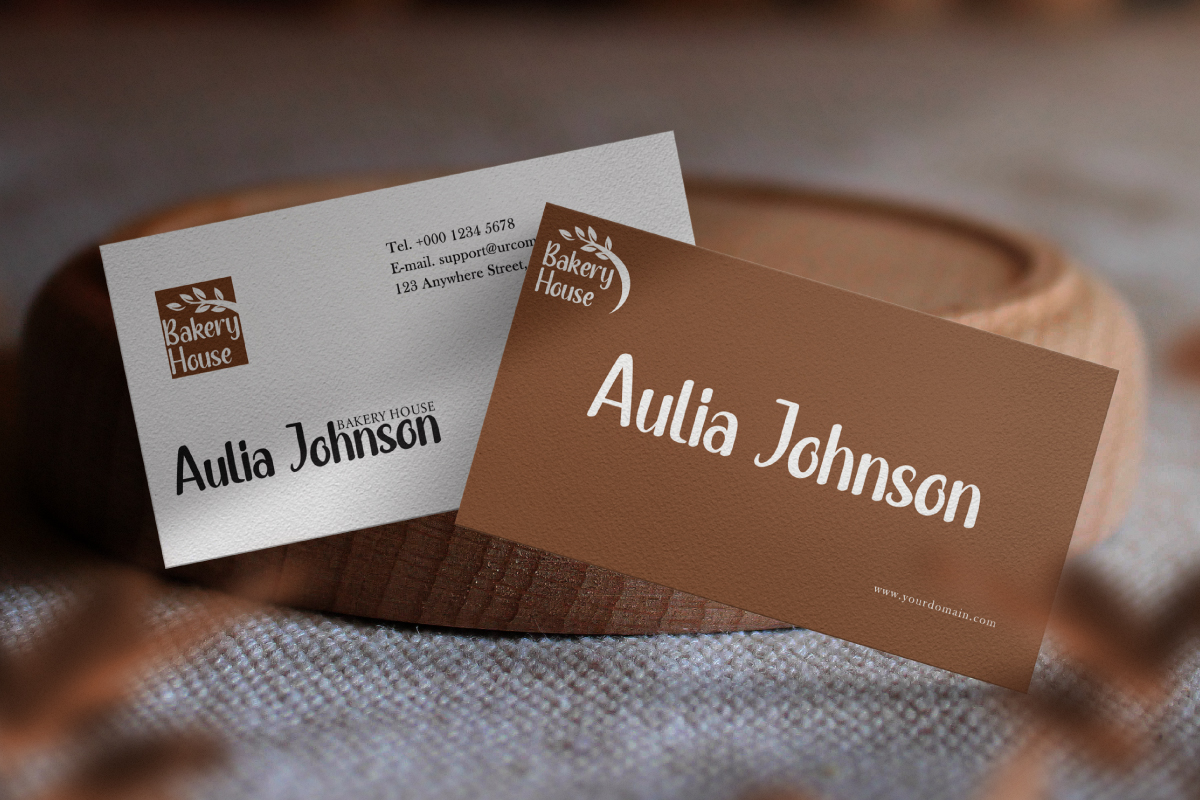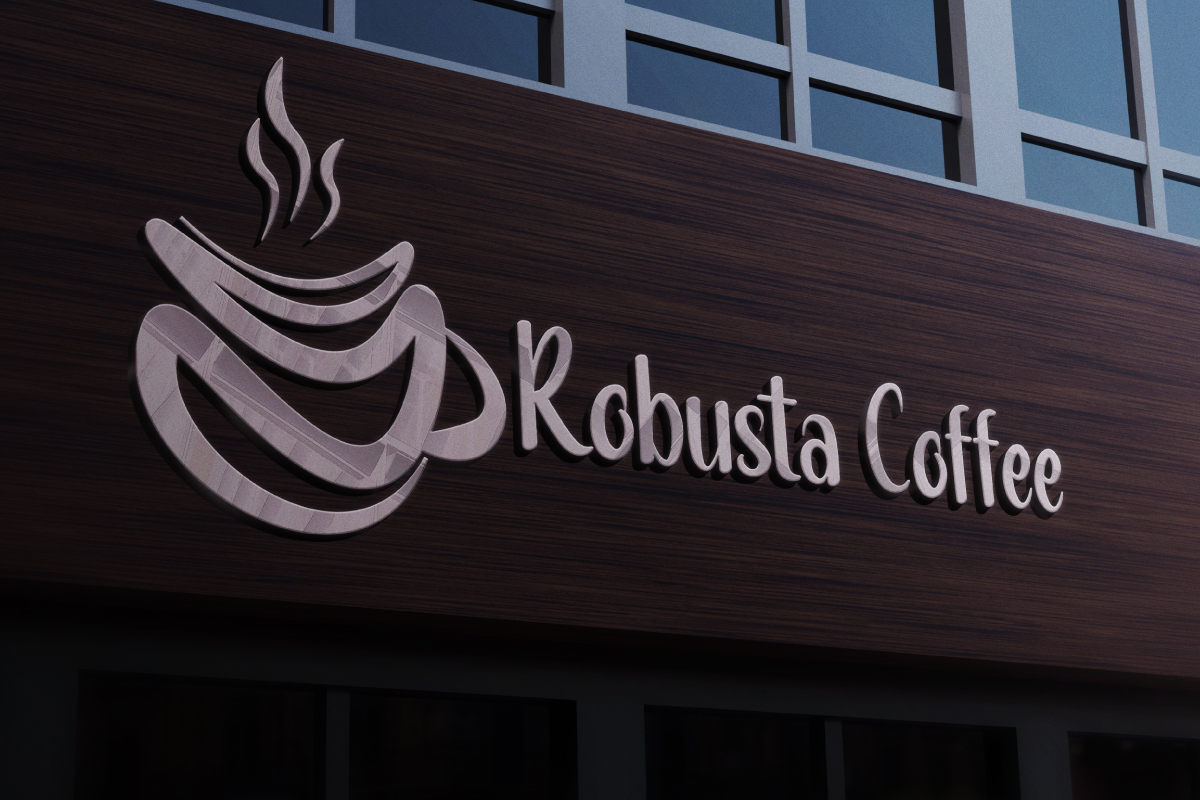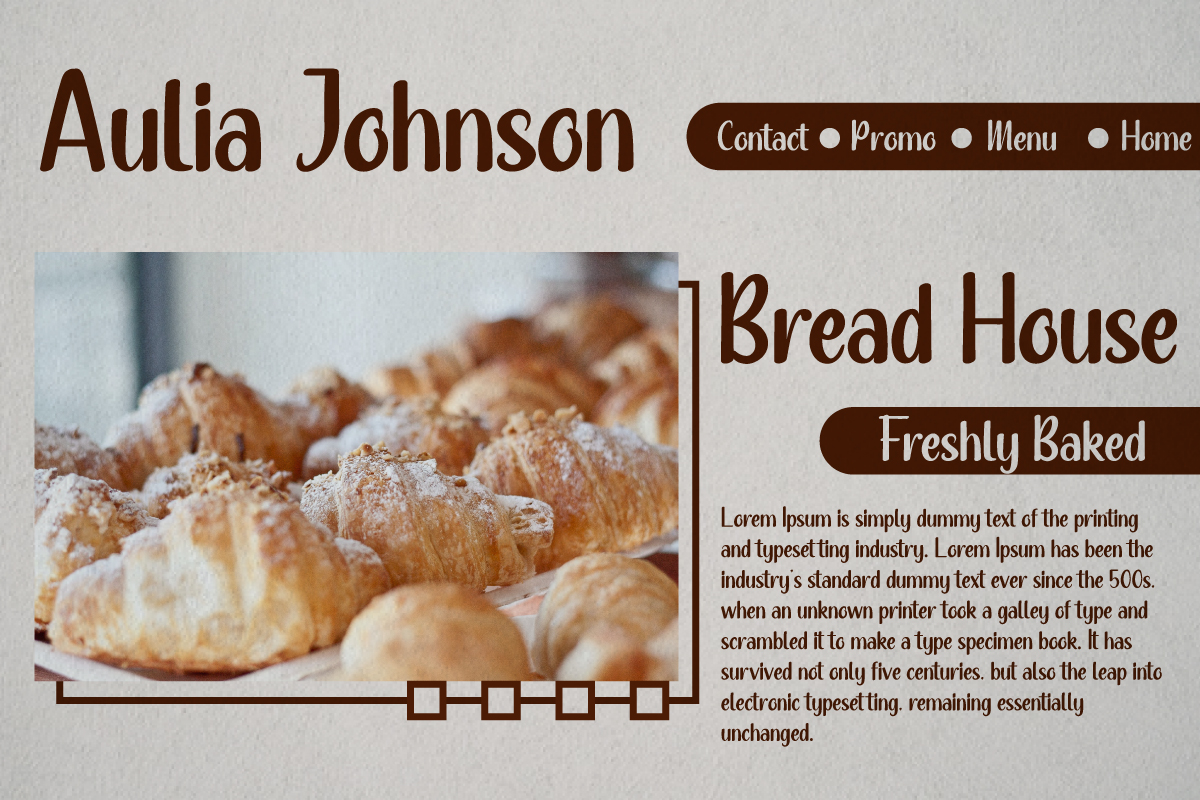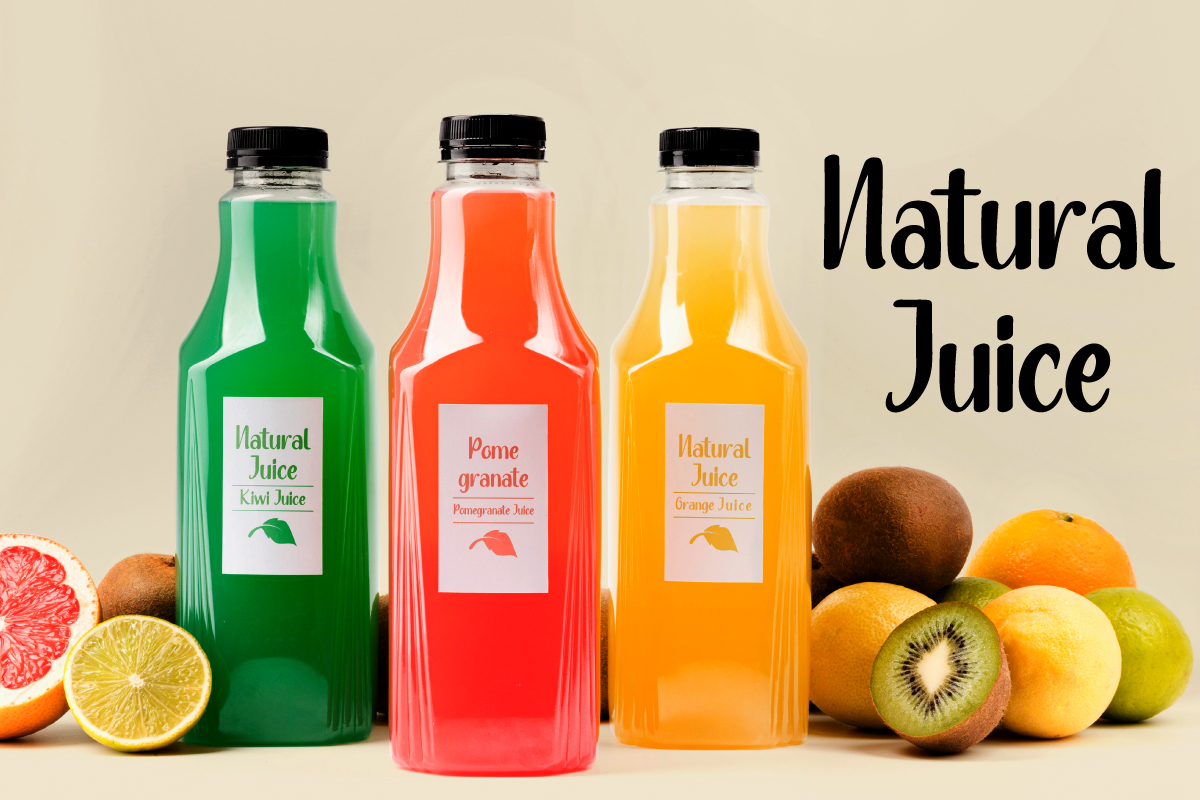
Bakery Roast Font
Bakery Roast Font is a sans serif display font family with vintage style. The font will be great for logo, brandings, headlines etc. The font will suit many industries including music, cafe/restaurant, fashion etc Bakery Roast Font come with unique letters so you can standout and use it for branding, menu, flyer, promotions tec.